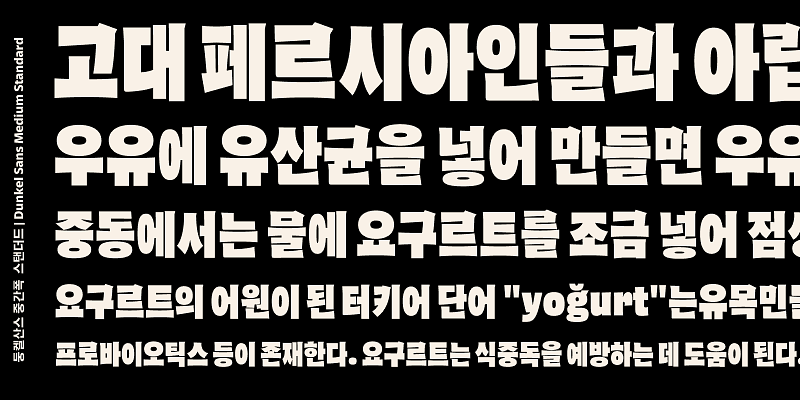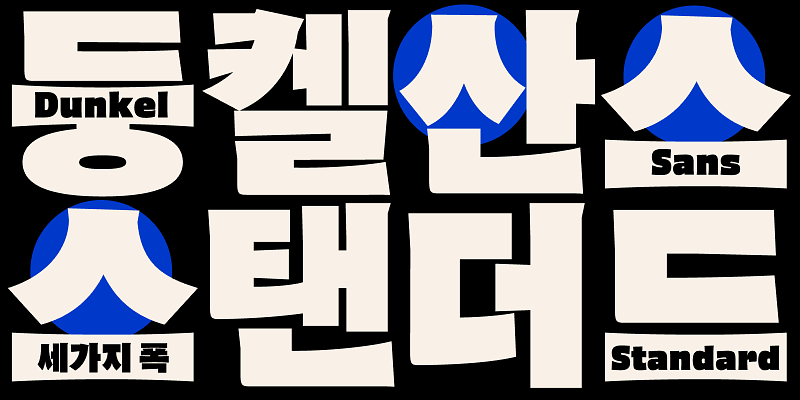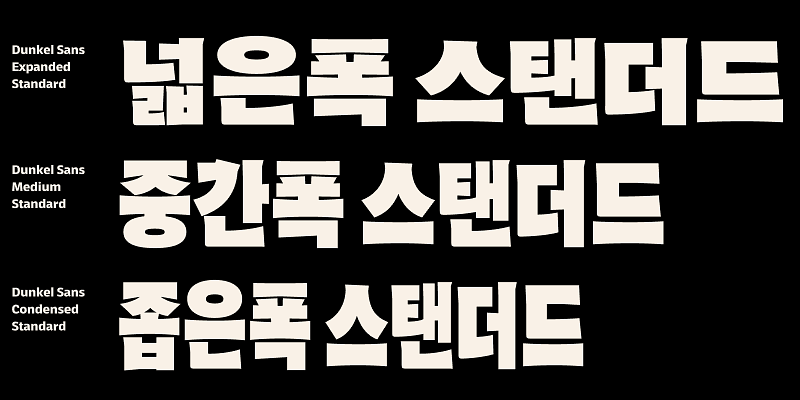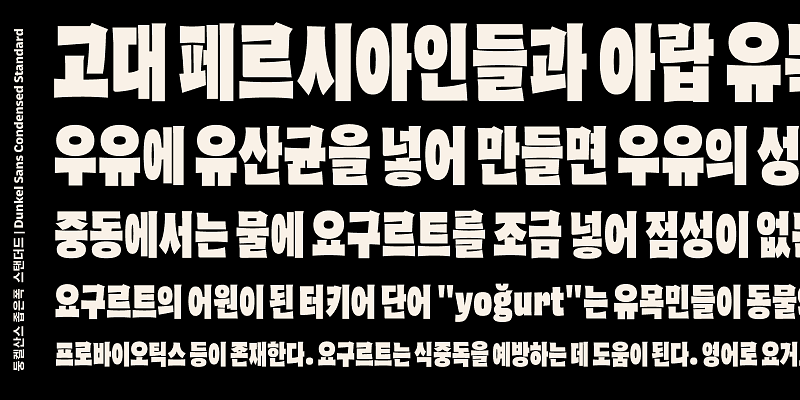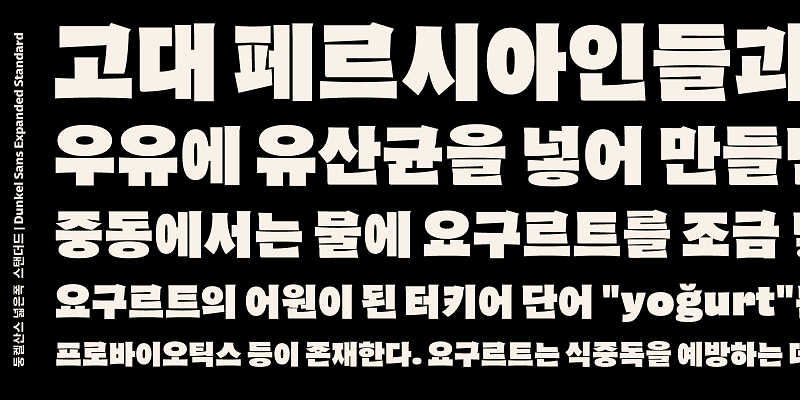
Bold. Refined. Familiar.
Dunkel Sans Standard retains the bold weight and textured character of the original Dunkel family, while evolving its rounded terminals into clean, symmetrical Gothic forms.
This subtle shift creates a more balanced, modern presence that feels both strong and approachable.
Perfect for moments when you need a black typeface that speaks with confidence—without shouting.
Minjoo Ham is an independent type designer and a half of Hypertype foundry. She completed the TypeMedia master course at the Royal Academy of Art in The Hague, Netherlands, concentrating on Latin and Hangul double-script, since then she is producing multi-script font families for multi script font project.